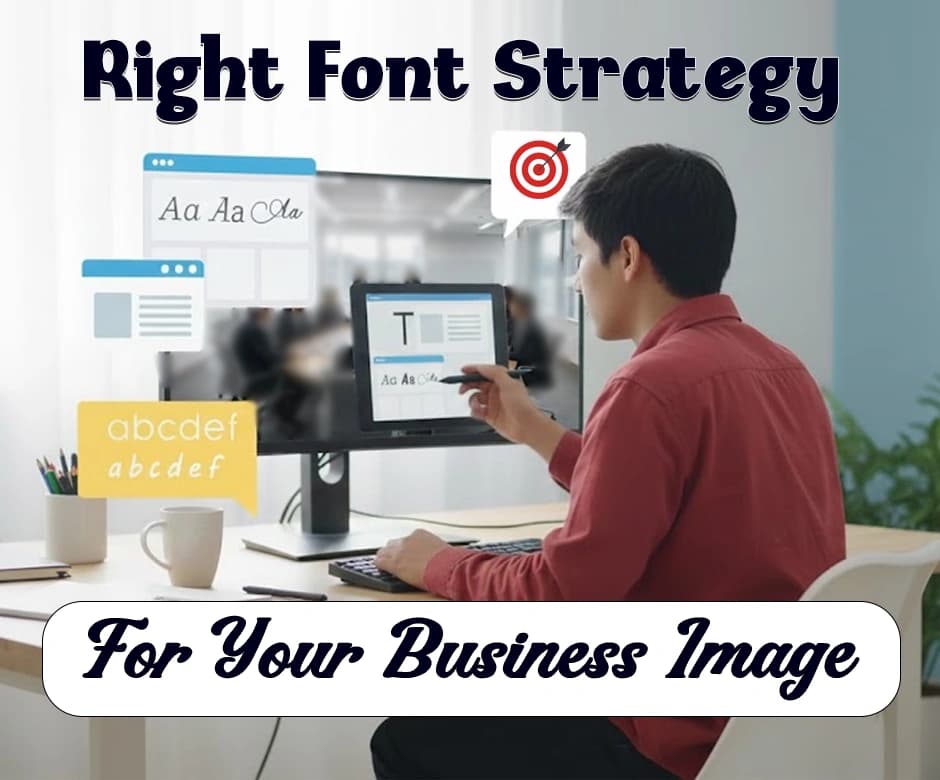
How Right Fonts Help Strengthen Your Business Image
Typography is more than just choosing letters. It is a powerful tool that shapes how a brand is perceived. The fonts a business selects convey personality, credibility, and values, often before a single word is read.
A mismatched font can make a company appear unprofessional or disconnected, while a thoughtful font strategy strengthens trust, engages audiences, and reinforces brand identity.
In this blog post, we will discuss how choosing the right fonts and creating a consistent typography strategy can enhance your brand image and engage your audience.
Understanding the Relation Between Fonts and Branding
Fonts do more than display text. They communicate a brand’s personality, values, and tone. The right typography can make a business appear professional, approachable, innovative, or trustworthy, while the wrong choice can create confusion or misrepresent the brand.
Different styles, such as serif, sans-serif, script, or decorative fonts, evoke distinct emotions and perceptions.
By understanding how fonts influence audience perception, businesses can make deliberate choices that reinforce their brand identity and create a consistent, memorable experience across all touchpoints.
Improve Your Brand with Stylish Fonts
How The Right Font Strategy Can Improve Business Image:
The following points explain how the right font strategy can improve your business image:
1. Enhances Professionalism and Credibility
The fonts you choose can instantly signal trustworthiness and competence. Clean, well-chosen typography shows attention to detail and professionalism, while inconsistent or outdated fonts can make a business appear careless.
2. Reflects Brand Personality
Fonts communicate the essence of your brand. Whether playful, modern, elegant, or bold, your typeface choices help customers understand your brand’s identity at a glance. Cursive texts, generated with Cursive Generator, can add a personal, elegant, or creative touch that boosts your brand’s unique personality and style.
3. Improves Readability and User Experience
A thoughtful font strategy ensures text is easy to read across websites, presentations, and marketing materials. Legible fonts enhance comprehension and engagement, keeping audiences connected to your message.
4. Strengthens Brand Consistency
Using a defined font hierarchy across all platforms, logos, websites, social media, and print boosts recognition. Consistent typography builds familiarity and trust with your audience over time.
5. Influences Customer Perception and Behavior
The right fonts can evoke emotions and influence decision-making. Strategic typography aligns with your target audience’s expectations, making your brand more appealing and memorable.
6. Makes the Brand Playful:
Fonts can influence the mood and personality of your brand. Playful typography adds energy, creativity, and a sense of fun that helps your business feel approachable and engaging.
To give your brand a playful vibe, you can use Glitchy fonts, which add a quirky, modern twist to your text. You can easily generate these styles with our Glitch Text Generator to make your content stand out.
Makes the brand playful:
How to Build a Font Strategy for Your Brand:
Creating a strong font strategy ensures your typography consistently reflects your brand identity. Here’s how to approach it:
• Define Your Brand Personality: Identify the traits your brand represents, professional, playful, modern, or elegant, and choose fonts that reflect those qualities.
• Select a Primary Font: Choose one main font for headings and key brand elements that communicates your brand’s core identity.
• Choose Secondary and Accent Fonts: Pick complementary fonts for body text, subheadings, or special design elements to create hierarchy and variety without losing consistency.
• Ensure Readability Across Platforms: Test your fonts on websites, mobile devices, print materials, and social media to guarantee clarity and legibility.
• Test and Refine: Gather feedback from your target audience and adjust fonts as needed to ensure they resonate and enhance your brand image.